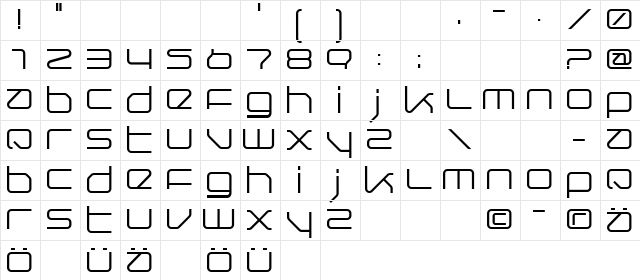
Querround Regular Free Font
Querround Regular
Design Context for Querround
Querround softens its letterforms with rounded terminals, giving it an approachable, friendly quality that works well in consumer-facing and digital contexts.
Font Pairing: Pairs well with a rounded or humanist sans for body copy, maintaining the friendly tone without relying on Querround to carry extended reading.
Pro Tip: Use Querround for UI elements, app interfaces, and anywhere a friendly, approachable tone needs to be maintained without sacrificing clarity.